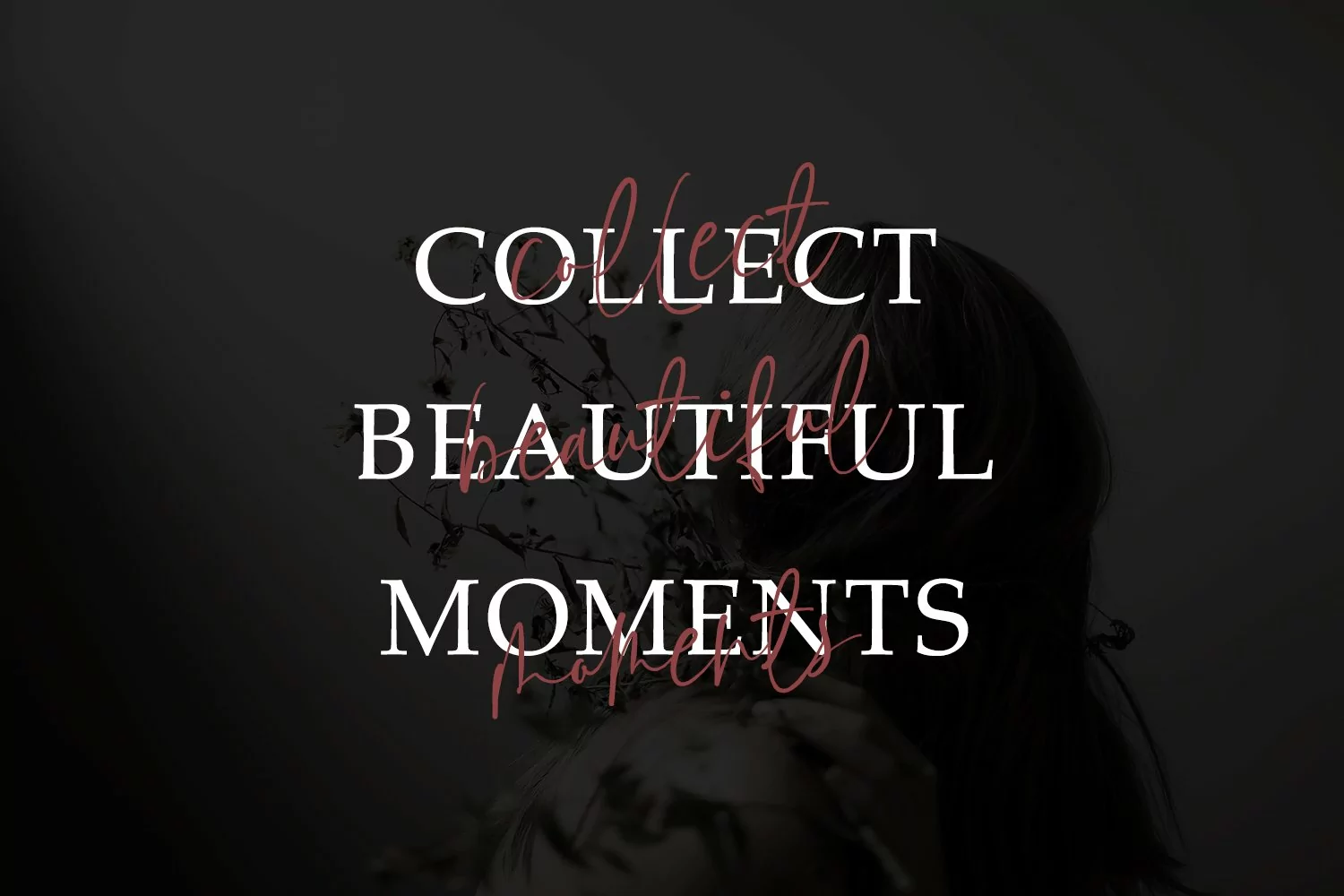
Holla, Mosast Signature font, It's perfect for branding, product packaging, invitations, quotes, t-shirts, labels, posters, typography quotes, magazine or book cover, website header, clothing, packaging design Etc.